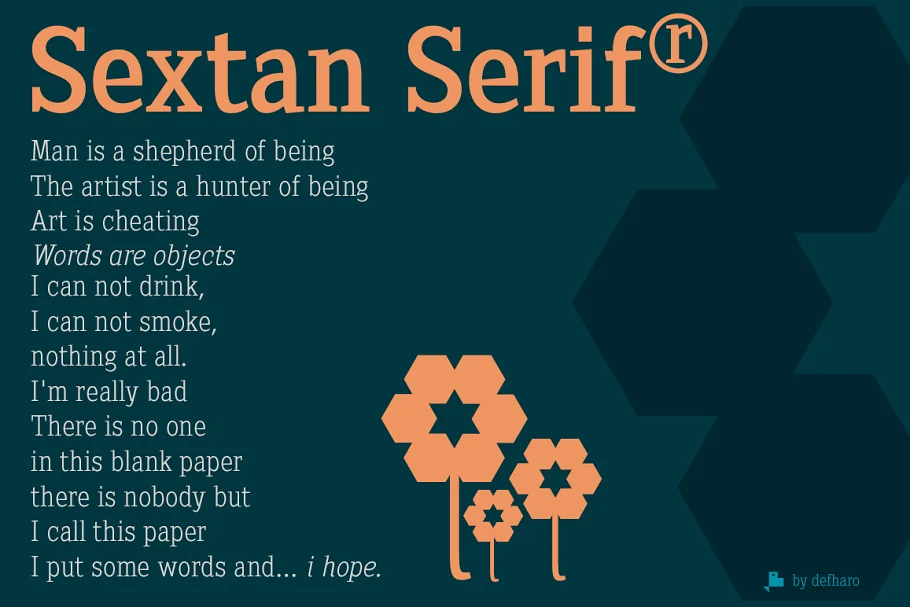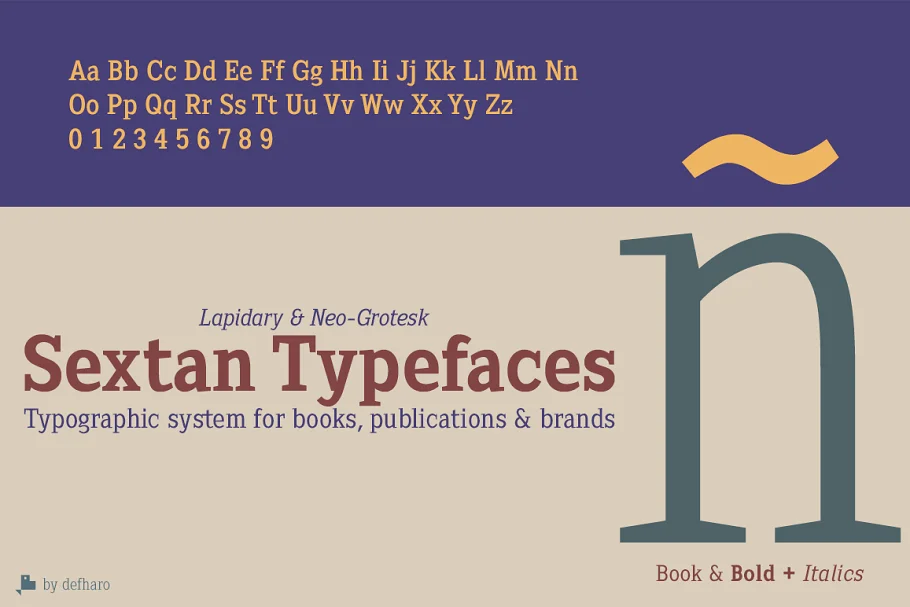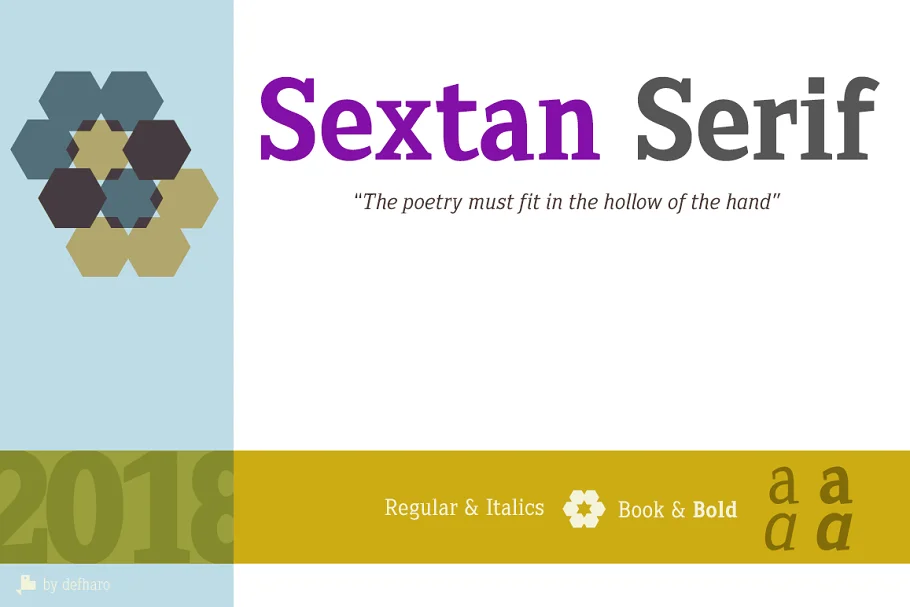
About the Sextan Serif 4 Font
Sextan Serif 4 Font is a typographic family designed for editorial, corporate, advertising, or web use.
The excellent Sextan Serif 4 Font readability allows the use in long texts, the coherence of forms makes these sources, with serifs of lapidary type, have a marked personality and own styles.
The proportions of the letters, as well as the metrics and the kerning, have been carefully calculated to obtain the maximum readability in paragraph texts, the different styles that include italics with lowercase Ad hoc, offering a complete typographic system for the layout of books, magazines, newspapers or use on-screen and Web. They are very exclusive fonts for corporate use and advertising design in general.
The fonts have an extra set of lower case letters accessible through the Discretional Ligatures. They include the Bitcoin symbol (b #)
- Sextan Book & Bold + True Italics (4 fonts)
- Sextan Serif includes the symbol of Bitcoin and currency symbols.
- OpenType Features: Scientific Inferiors, All Alternates, Alternate Annotation Forms, Capital Spacing, Localized Forms, Historical Forms, Discretionary Ligatures, Superscript, Superiors, Superior letters, Subscript, Standard Ligatures, Slashed Zero, Additional languages, Ordinals, Oldstyle Figures, Numerators, Denominators, Kerning, Inferiors, Historical Ligatures, Fractions, Extended Fractions.